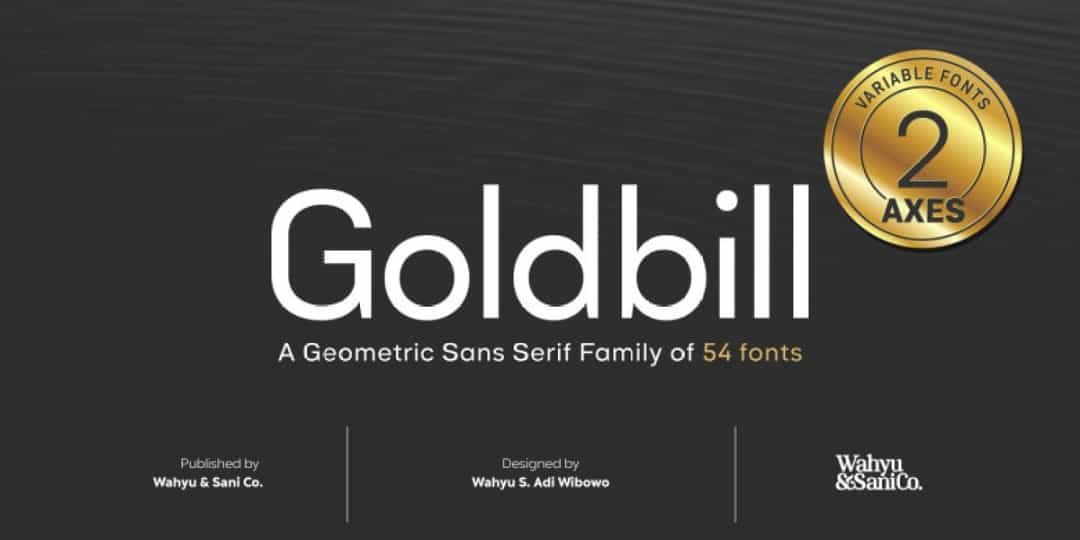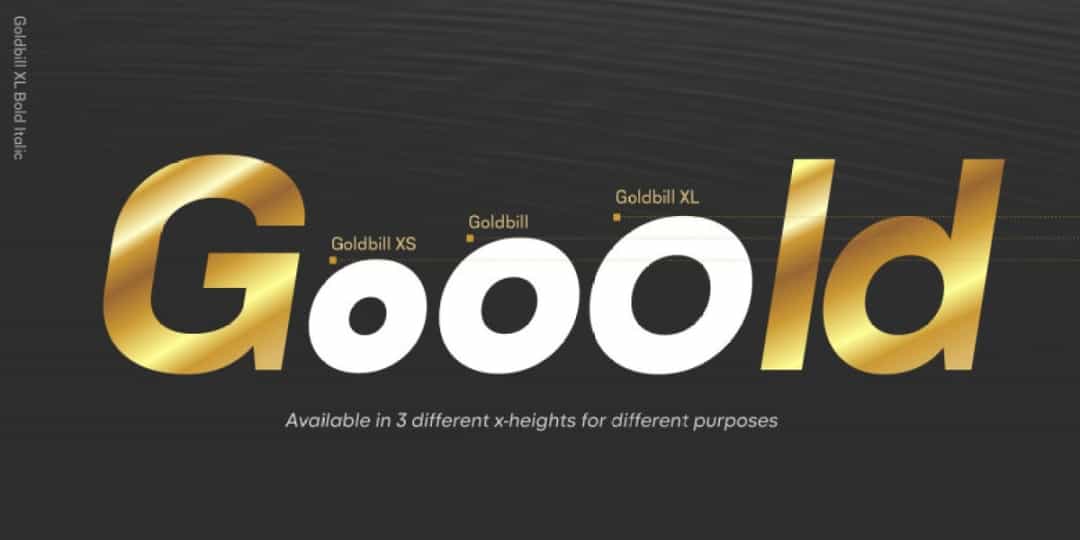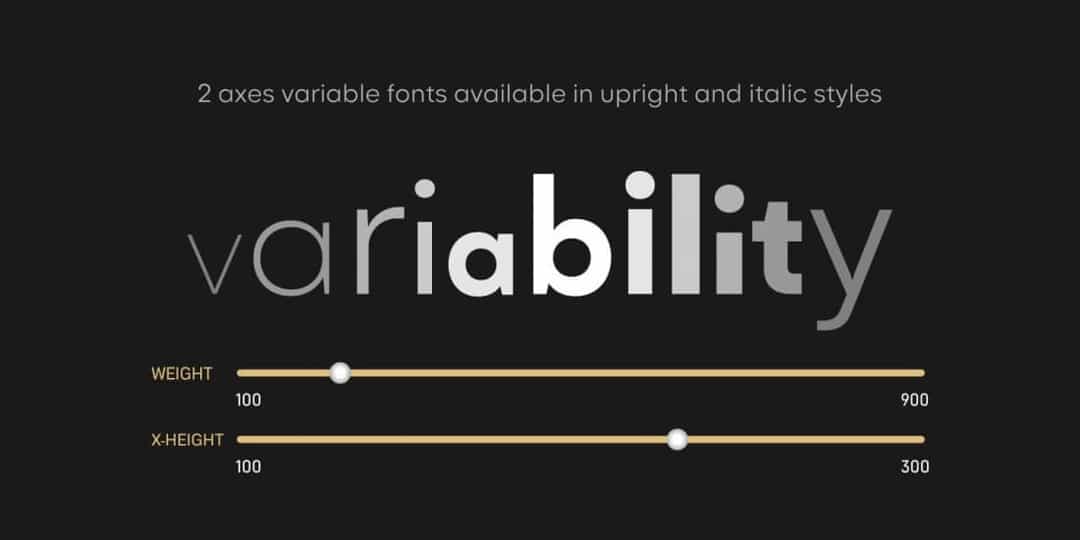
Goldbill is a contemporary sans serif font which was designed based on the geometric shapes. It is not just another geometric typeface, the uppercase letters are designed to have more squared form instead of circular and the lowercase retain their circular look. It was created with 2 axes variable; x-height and weight that produces 54 fonts in which there are three different x-heights and nine different weights.